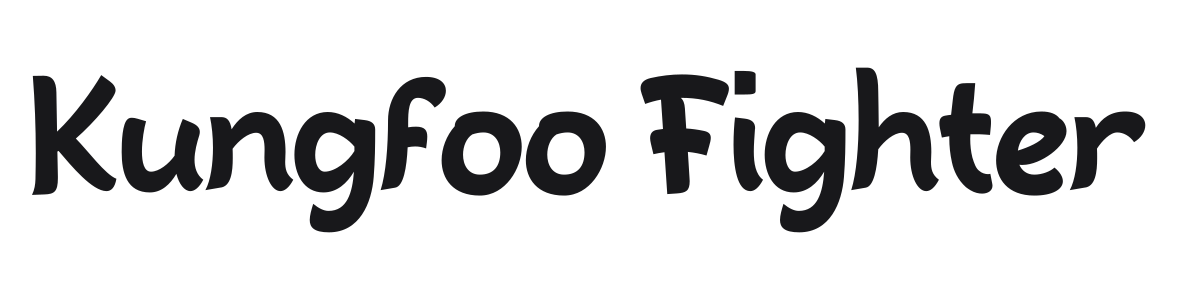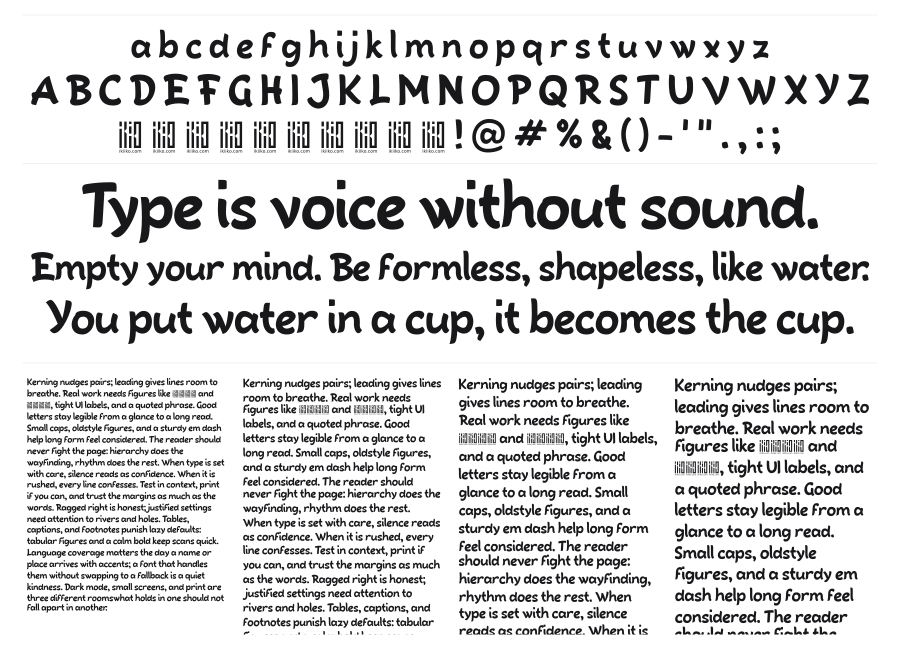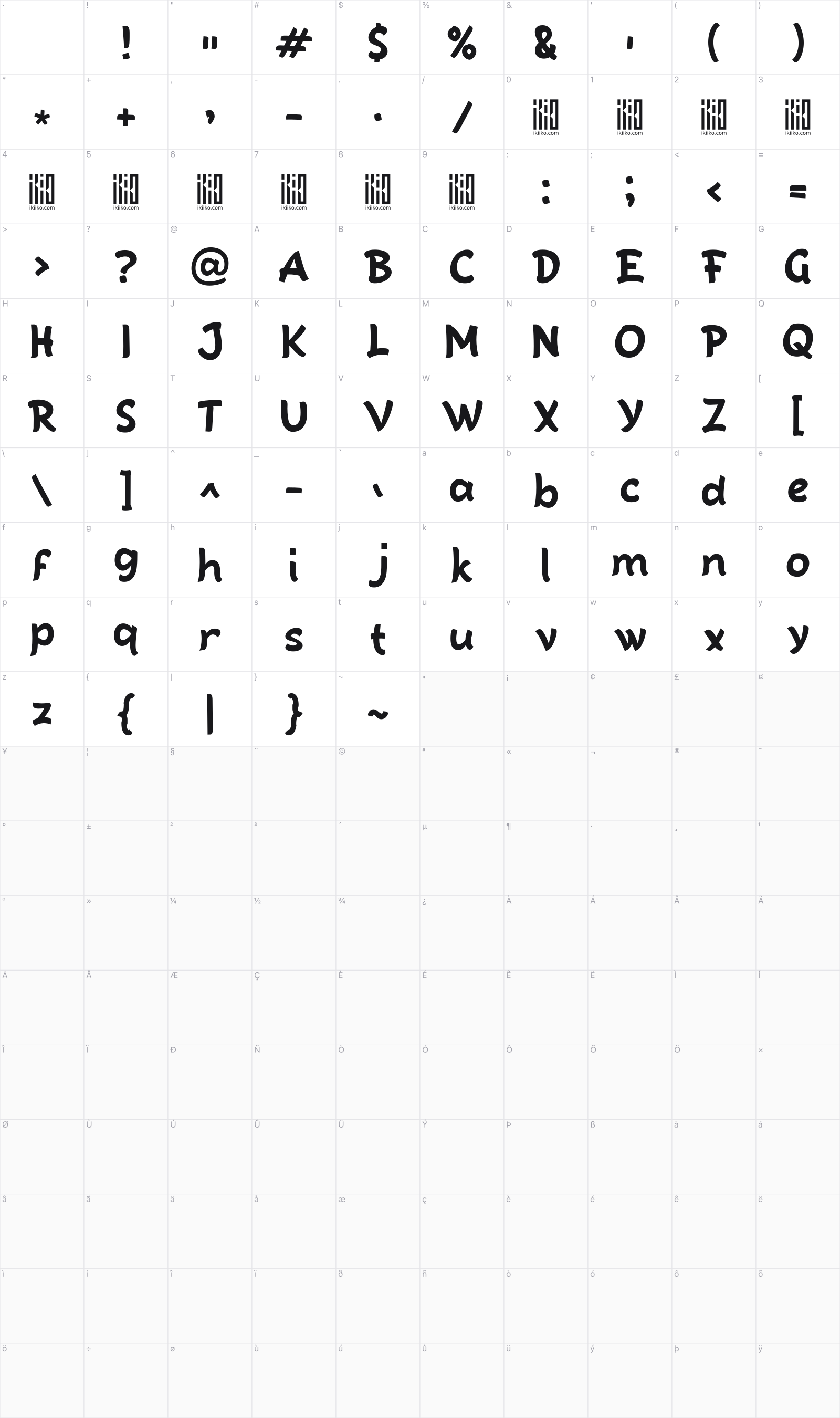
Kungfoo Fighter
Kungfoo Fighter is a bold rounded display font with chunky, hand-drawn energy and a comic book sensibility. Its thick strokes and loose organic construction evoke marker lettering and Saturday-morning cartoon titles. The design carries a strong action theme while staying approachable and fun.